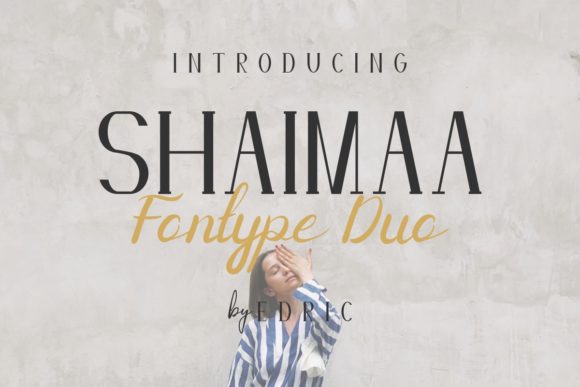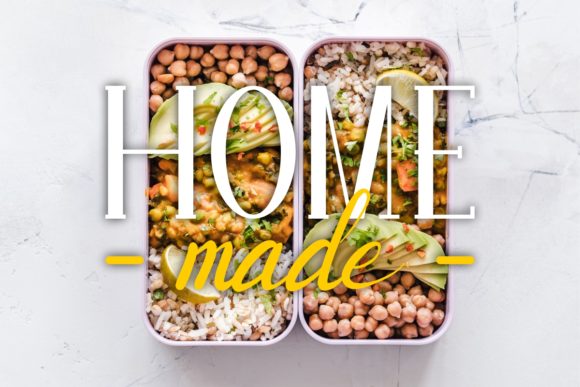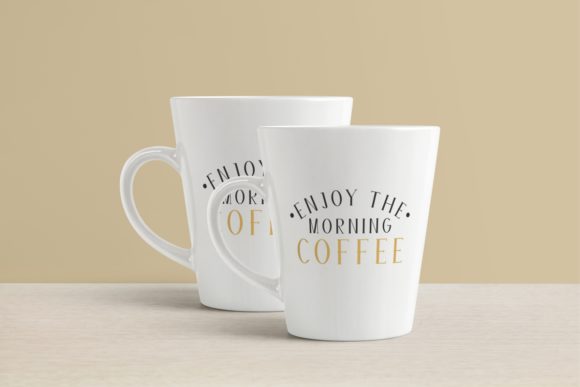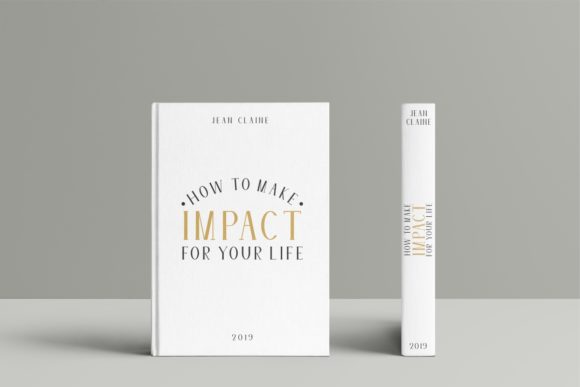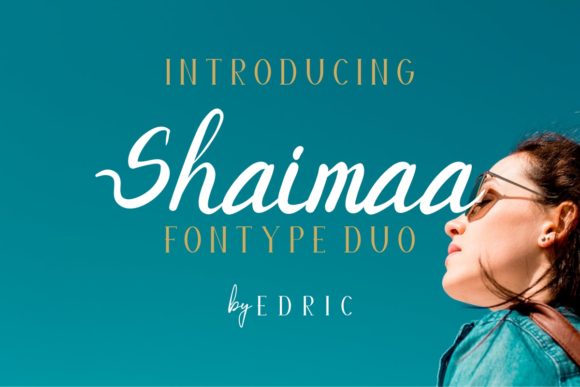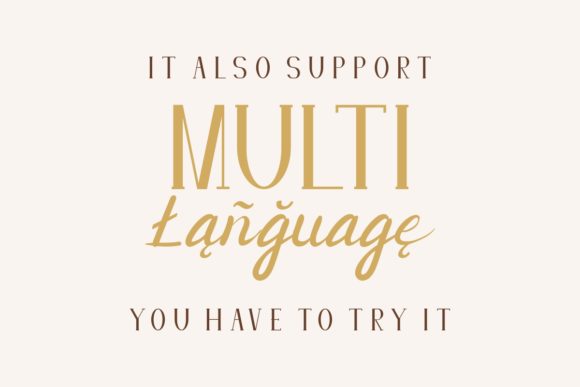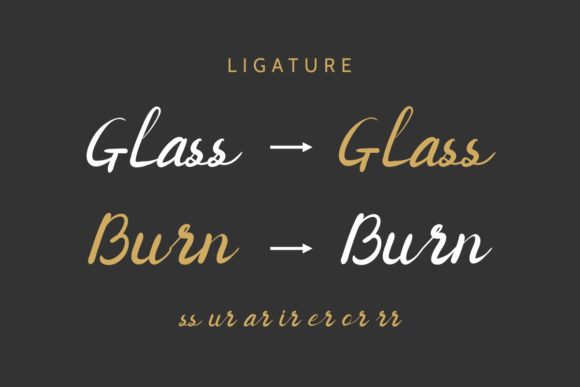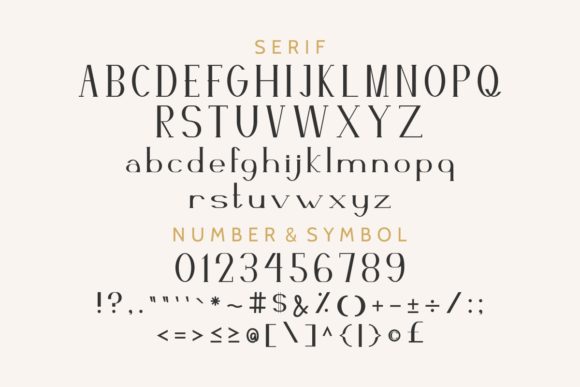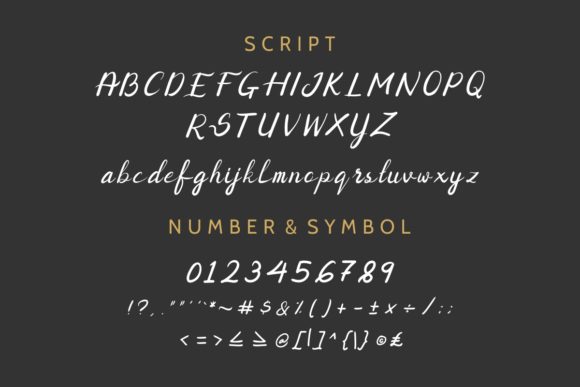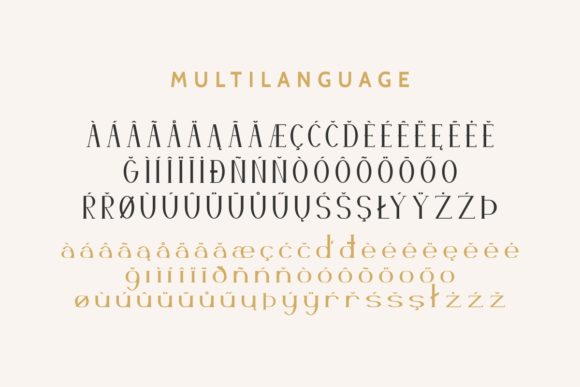
Shaimaa Font
About Shaimaa Font
Shaimaa is a lovely font duo with script and serif styles. Use it for any design project that requires a personalized appearance!